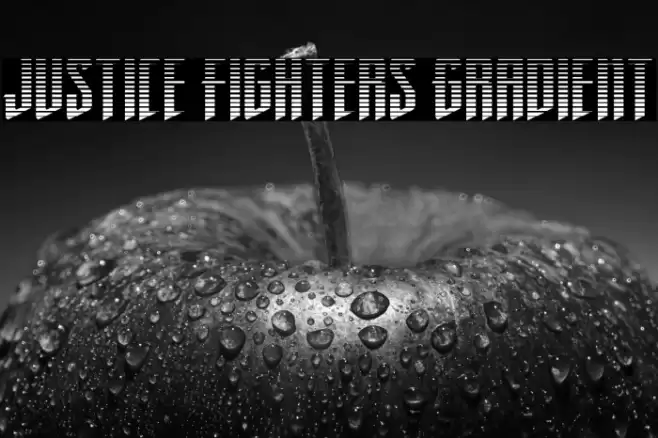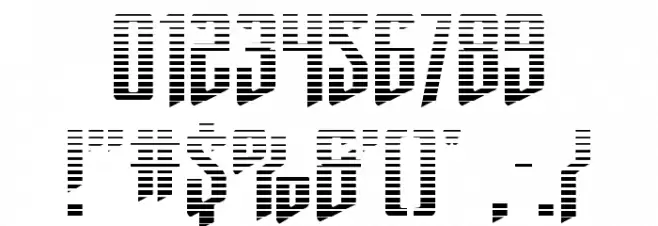
Justice Fighters Gradient Font
Justice Fighters Gradient Description
This font features a bold, dynamic design with a gradient effect that creates a sense of depth and movement. The characters are constructed with horizontal lines that give a striped appearance, adding a modern and edgy feel. The uppercase and lowercase letters maintain a consistent style, with sharp angles and clean lines. Numbers and special characters are designed to match the overall aesthetic, ensuring uniformity across all text elements. This font is ideal for projects that require a strong visual impact and a contemporary look.
A bold, gradient-striped font with a modern, dynamic style from Regular fonts.
- Proposed Projects: Perfect for posters, logos, video game titles, and any project needing a futuristic or high-impact design.